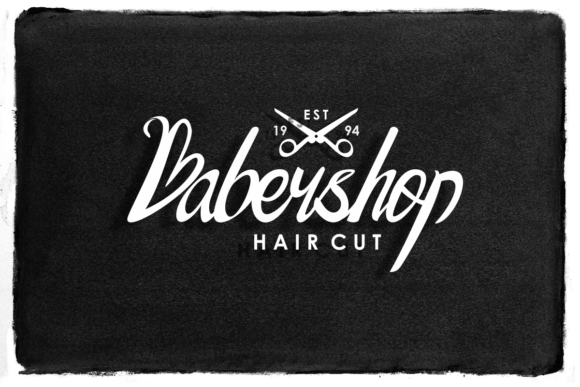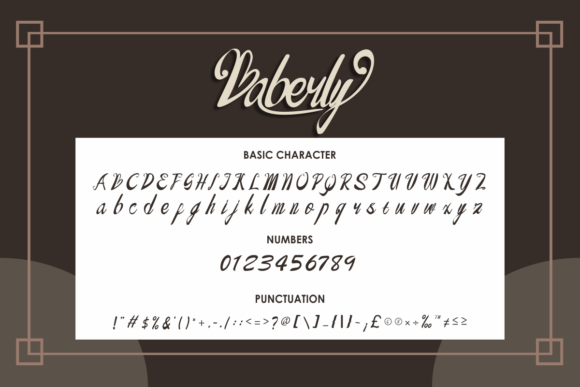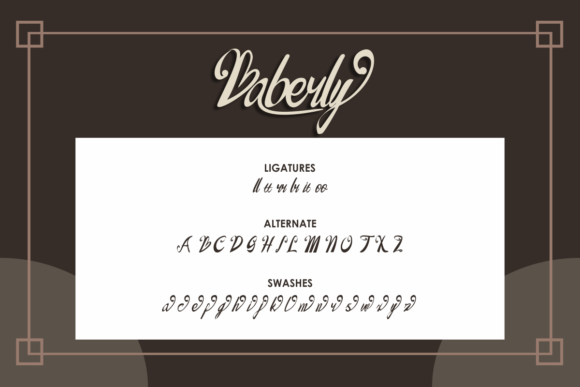
Baberly Font
About Baberly Font
Baberly is a classic and vintage styled handwritten font. Fall in love with it and bring your projects to the highest levels!